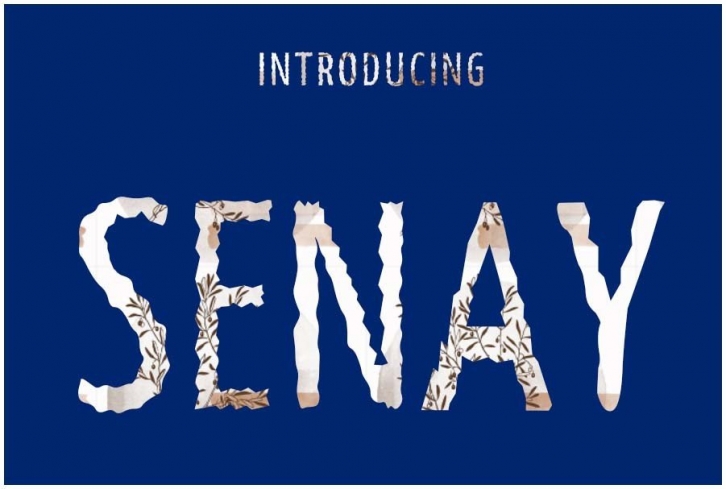
Senay FONT Download
Senay Font Download
It’s a modern calligraphy typeface, which combines the style of classic calligraphy with a modern style. combines from copperplate to contemporary typeface with a dancing baseline, modern and elegant touch.